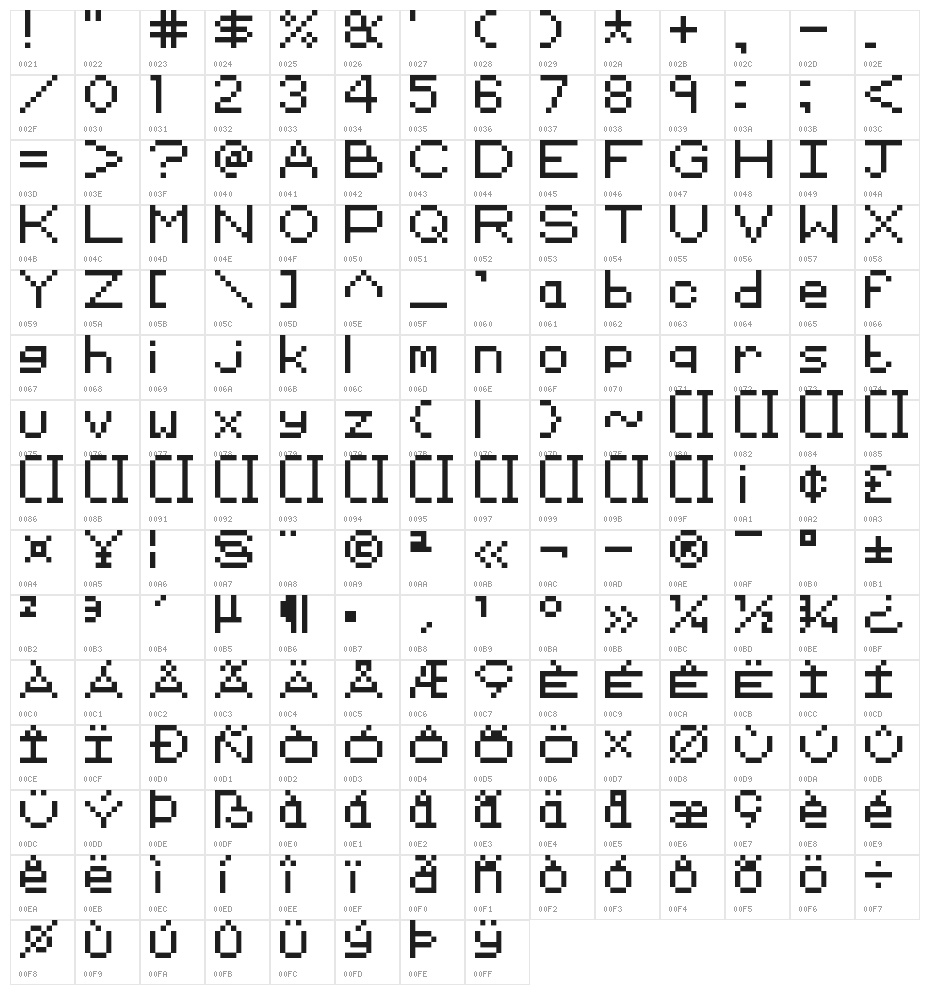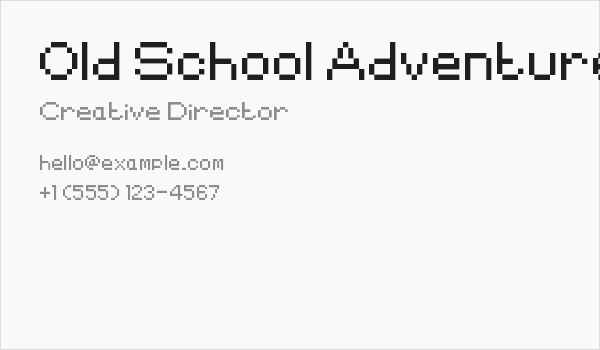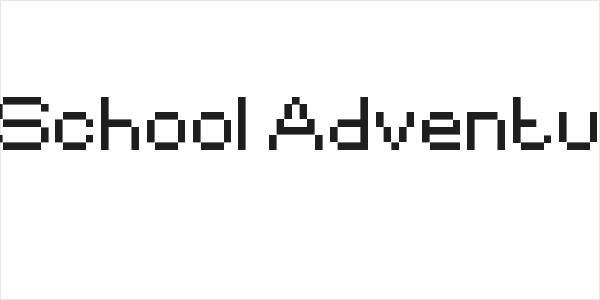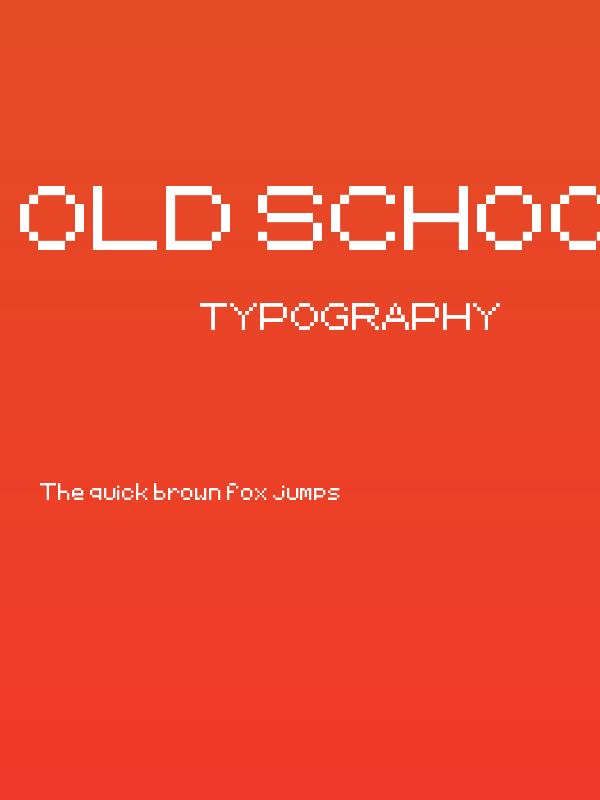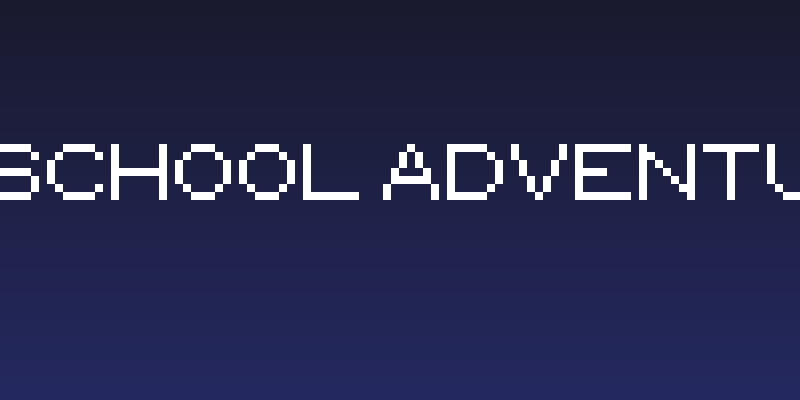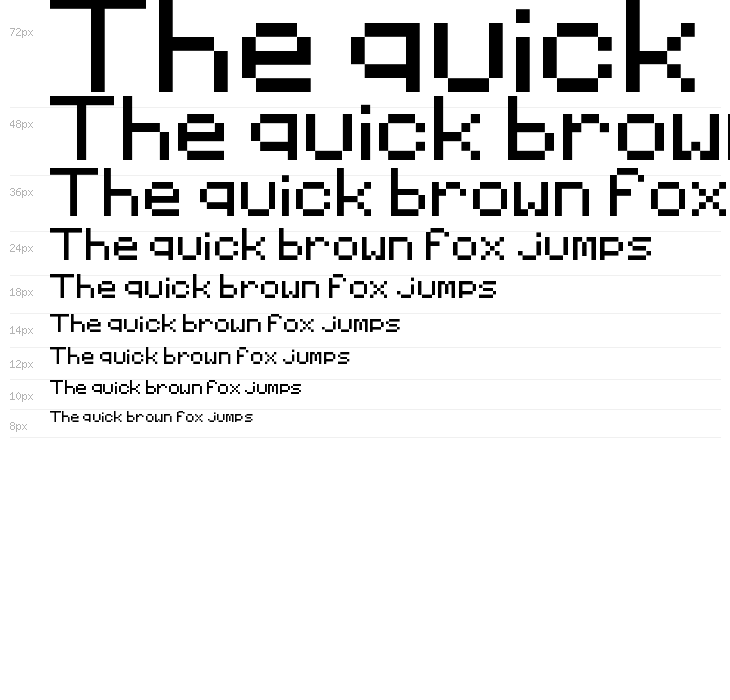
Old School Adventures Font
Old School Adventures Description
This font features a pixelated, retro design reminiscent of early digital displays and classic video games. Each character is composed of small, square blocks, giving it a distinctly digital and nostalgic feel. The uppercase and lowercase letters maintain a uniform height, with minimal variation in stroke width. Numbers and special characters follow the same blocky style, ensuring consistency across all elements. The font's simplicity and geometric precision make it ideal for projects that aim to evoke a sense of nostalgia or pay homage to early computing aesthetics.
| Use Case | Logos, Headlines, Digital Art |
| Proposed Projects | Ideal for retro-themed video games, digital art projects, and nostalgic branding. |